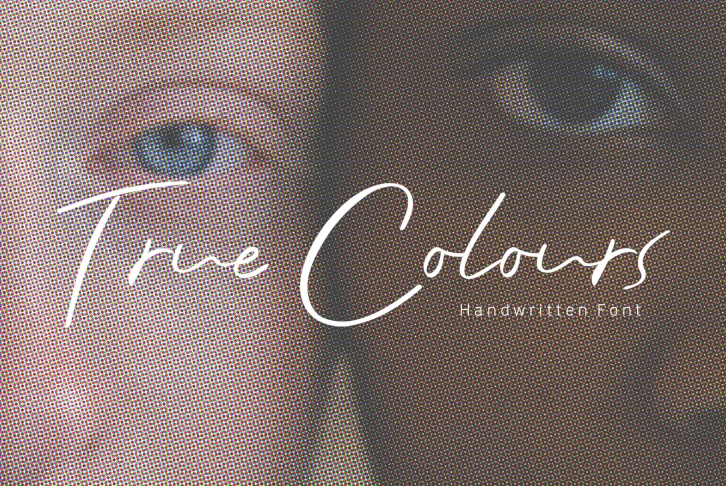
True Colours is a relaxed, thin lettered and stylish handwritten font, that exudes elegance and class. This font was particularly crafted for those who need a beautiful and refreshing look to their designs.